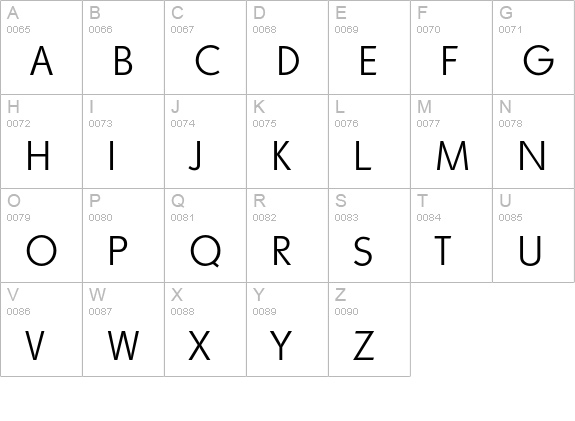
Ornitons-Xlight Font Details
Ornitons-Xlight is a modern and sleek font that exudes elegance and sophistication. With its clean lines and stylish design, this font is perfect for a wide range of projects, from branding to editorial design. The Ornitons-Xlight font strikes the perfect balance between simplicity and sophistication, making it a versatile choice for any design project. The best part about Ornitons-Xlight font is that it is available for free download at FontsMarket.com. This means that you can easily access this stunning font without having to worry about any additional costs. Whether you are a professional designer or a hobbyist looking to elevate your projects, Ornitons-Xlight font is the perfect addition to your font library. Add a touch of elegance and style to your designs with Ornitons-Xlight font, now available for free download at FontsMarket.com. Let your creativity shine with this beautiful and versatile font that is sure to make a lasting impression on any project.